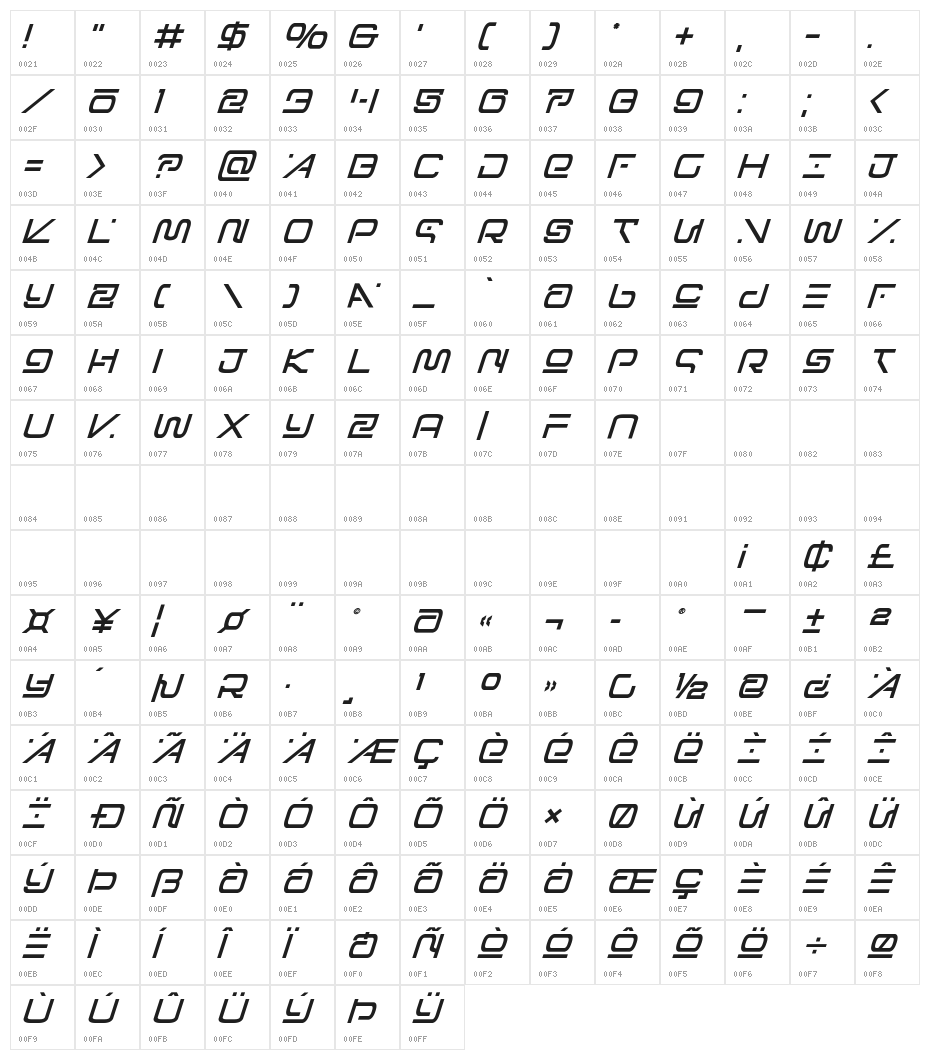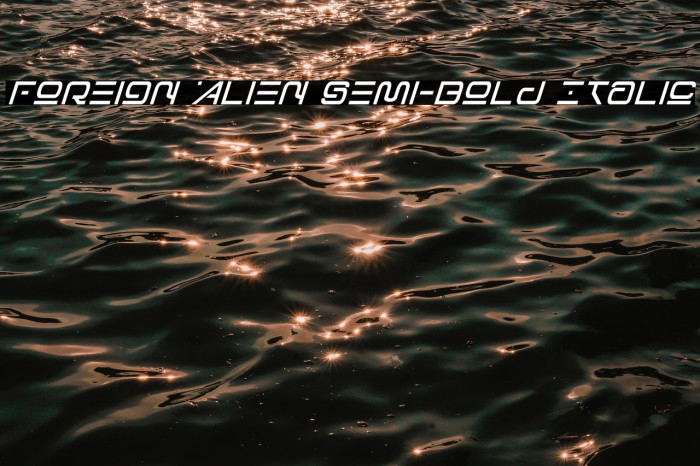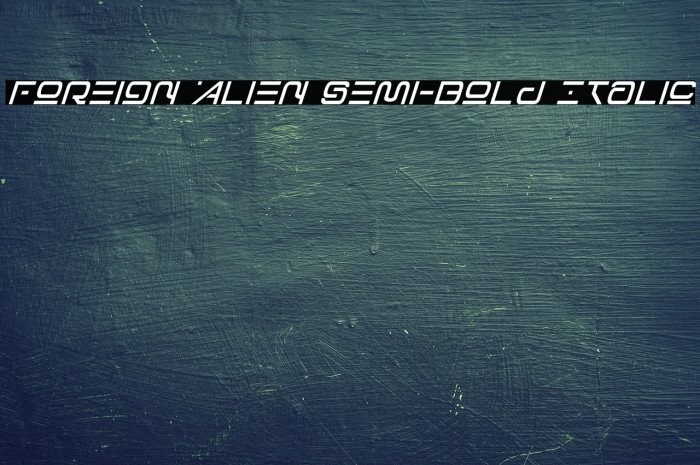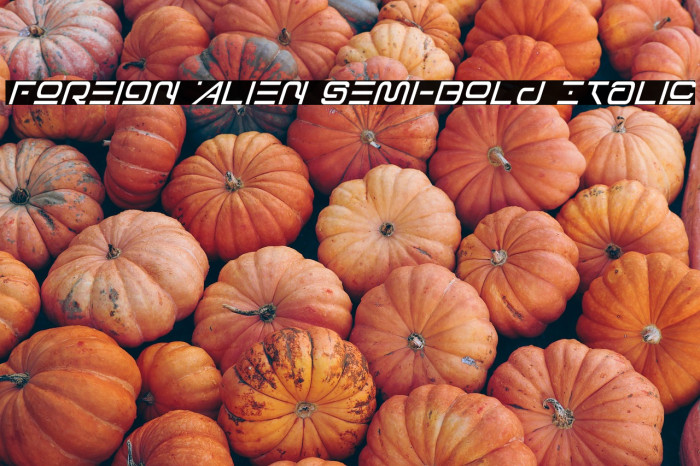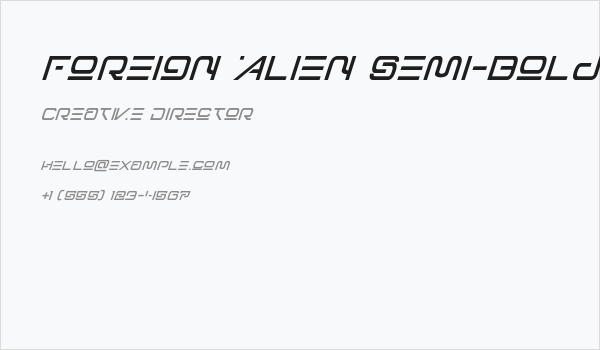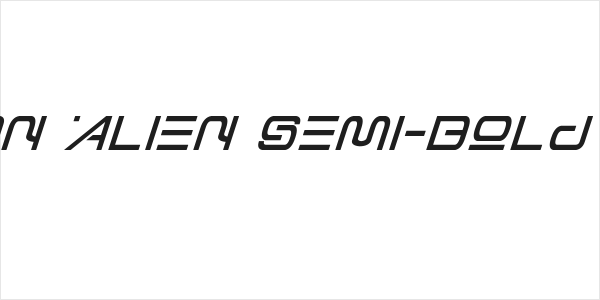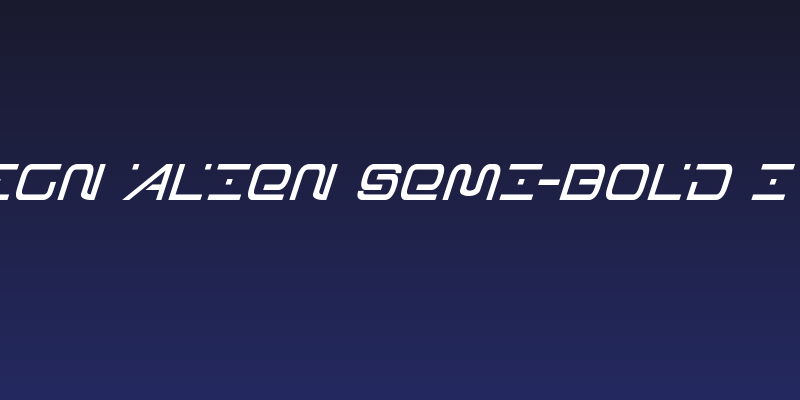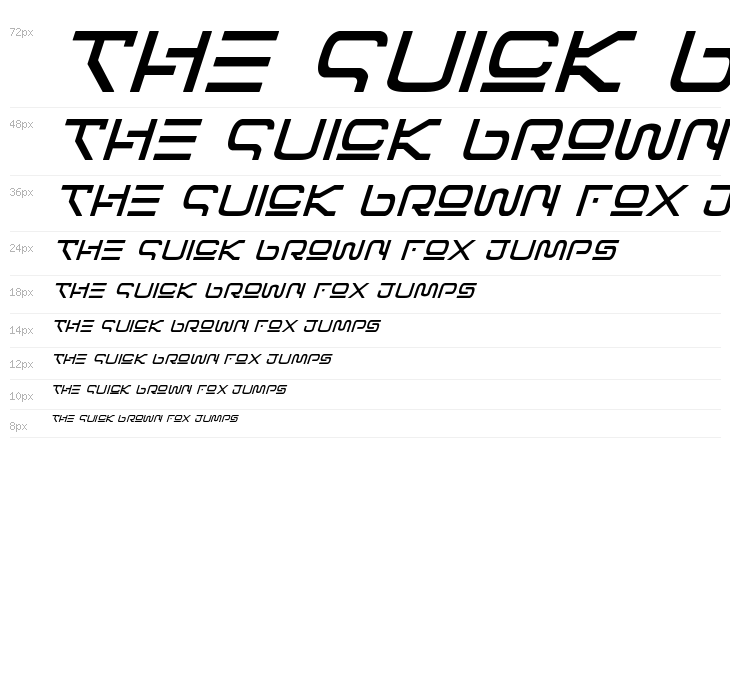
Foreign Alien Semi-Bold Italic Font
Foreign Alien Semi-Bold Italic Description
This font presents a futuristic and alien-like aesthetic, characterized by its semi-bold weight and italicized form. The letters are angular with sharp edges and unique geometric shapes, giving it a distinct, otherworldly appearance. The uppercase and lowercase letters maintain a consistent style, with a slight slant that enhances its dynamic look. Numbers and special characters follow the same design principles, ensuring uniformity across all glyphs. The font's design is sleek and modern, making it ideal for projects that require a sci-fi or tech-inspired theme.
| Proposed Projects | Ideal for sci-fi movie posters, video game titles, tech branding, and futuristic-themed designs. |